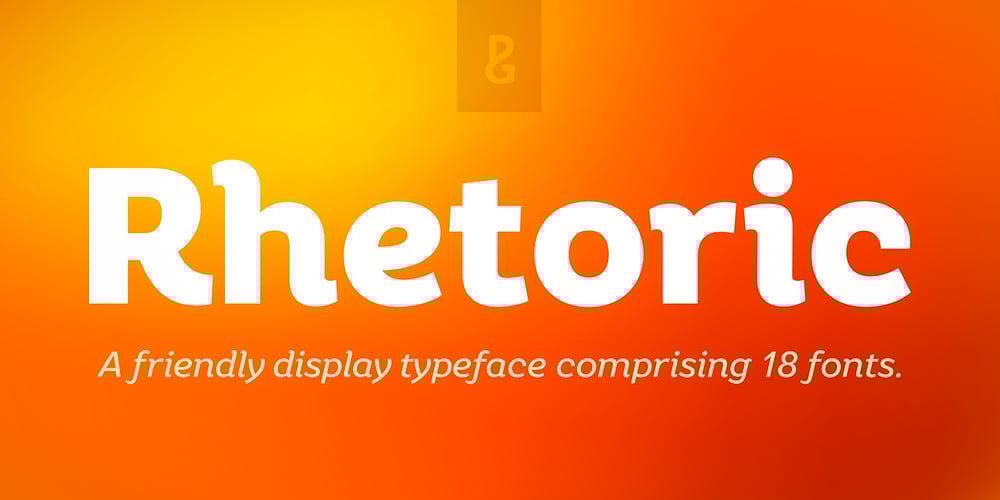
Rhetoric Font Family was designed by Paulo Goode and published by Monotype. Rhetoric contains 18 styles and family package options. Rhetoric is a friendly display typeface that’s full of personality. The fonts are defined by their roman characters which could be described as “upright italic” – the style traditionally associated with a cursive character set has been applied to the roman glyphs. Rhetoric embraces its curves –exemplified by the voluptuous caps for /A/M/U/V/W/X/Y/ which further enhance this typeface’s quirky nature. This 18-font type family has weights from Hairline to Ultra in both roman and italic. Western European languages are covered in its basic character set, but there are a number of alternates and discretionary ligatures that allow you to embellish your typographic designs. Designed for branding purposes, headlines and short runs of text, Rhetoric will be a worthy addition to your type collection.